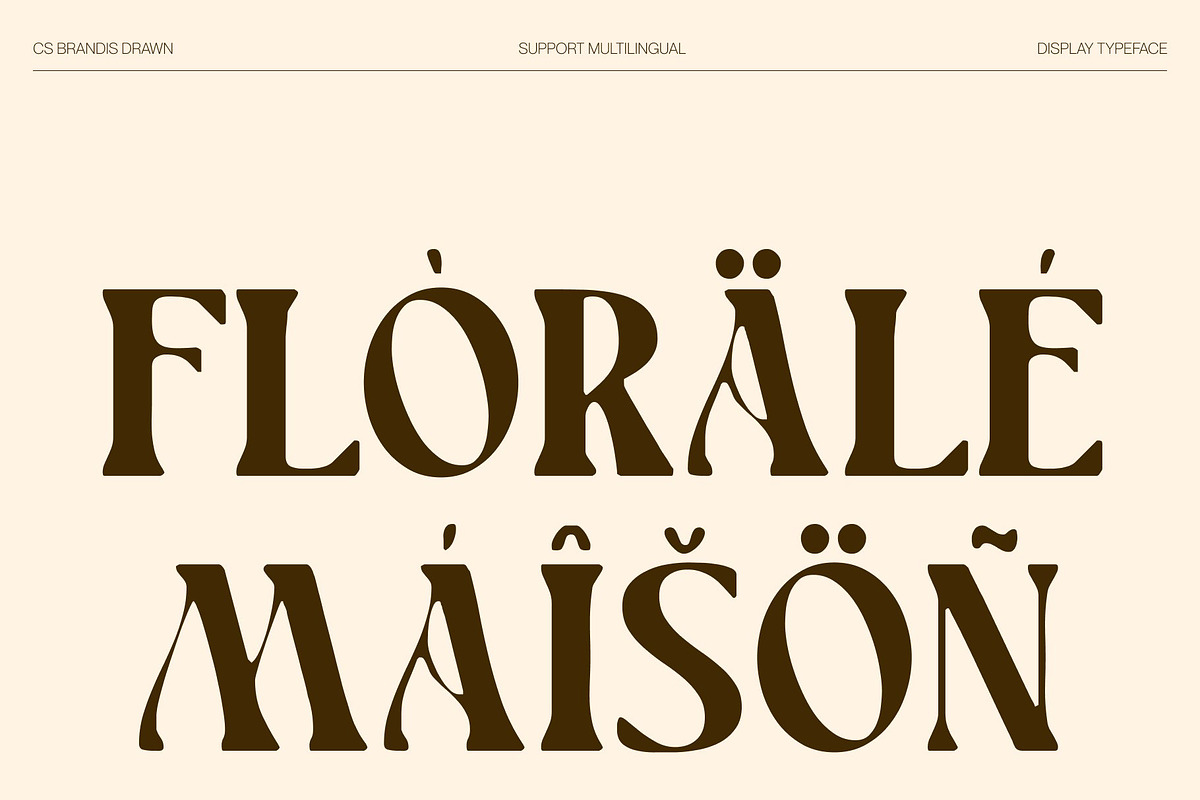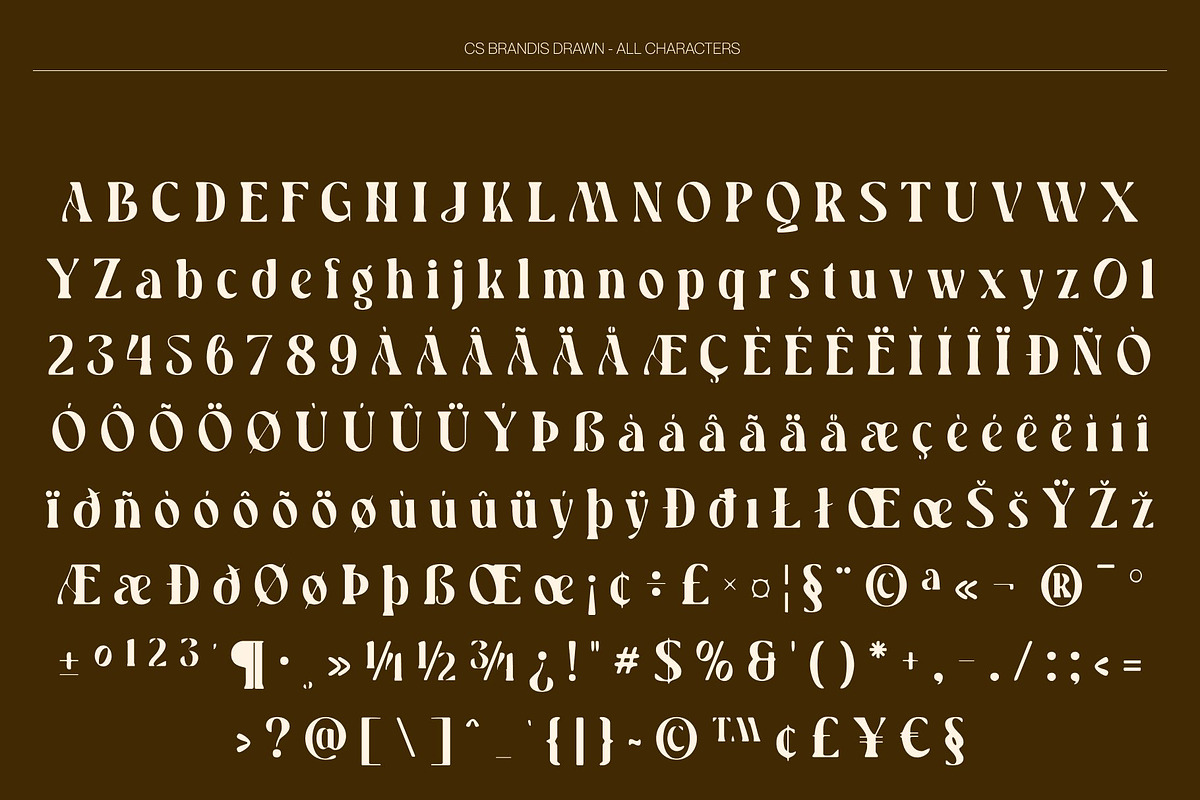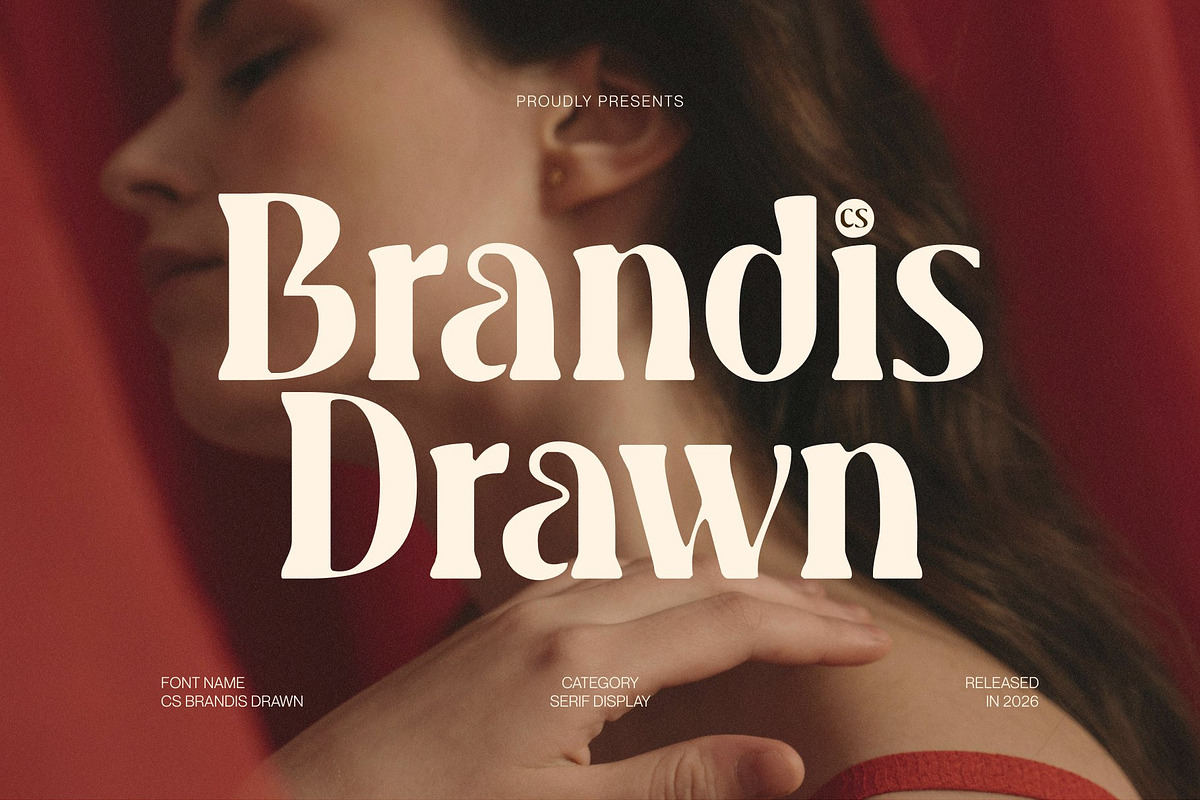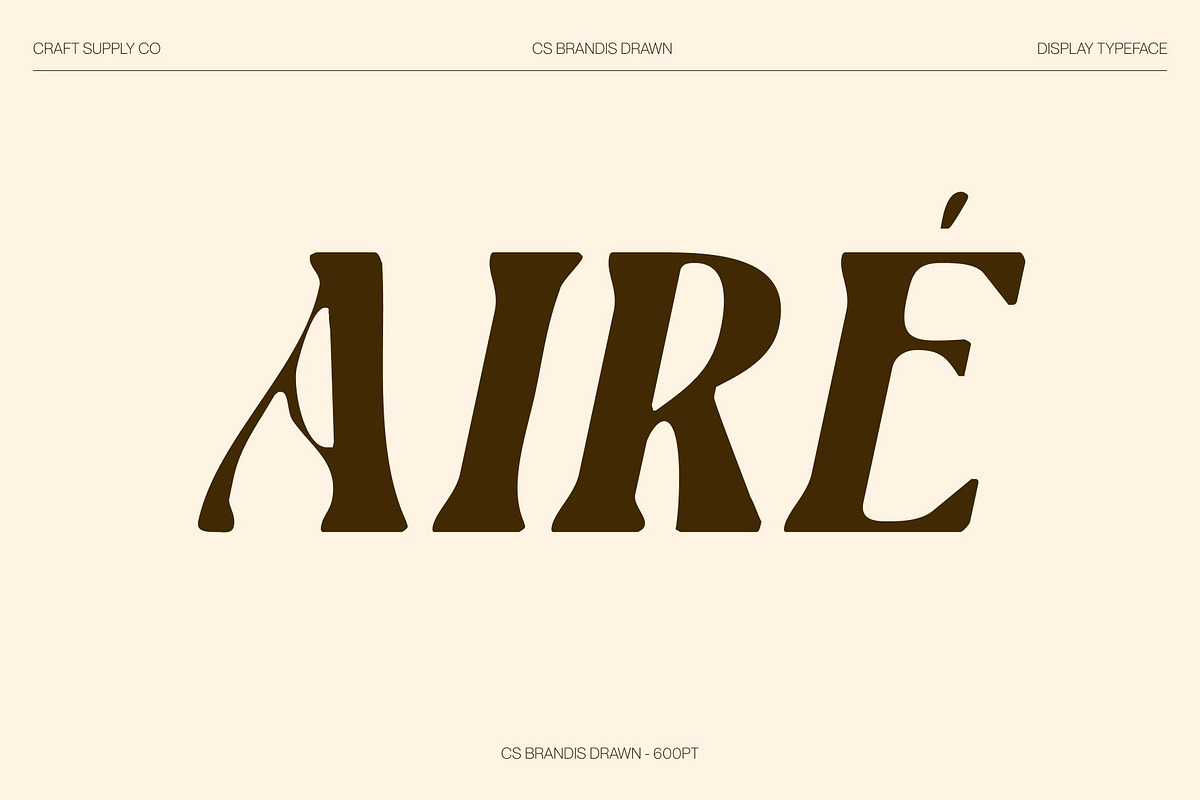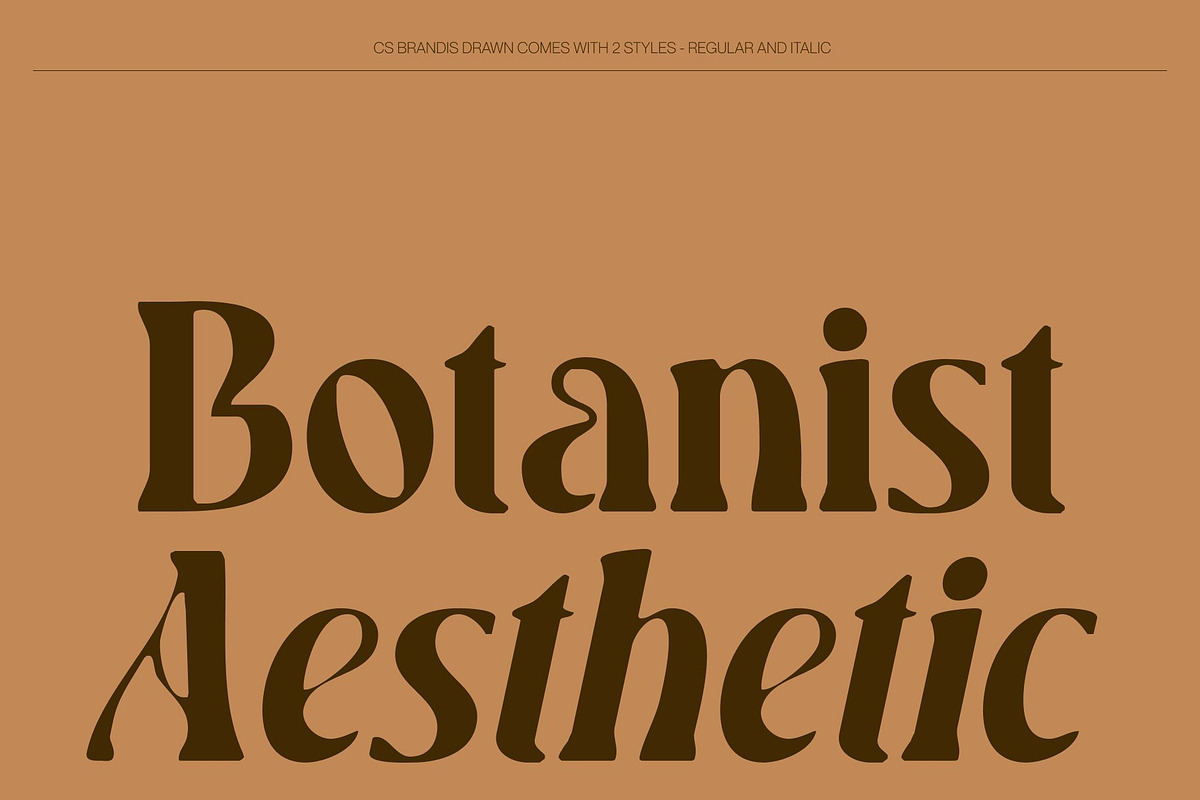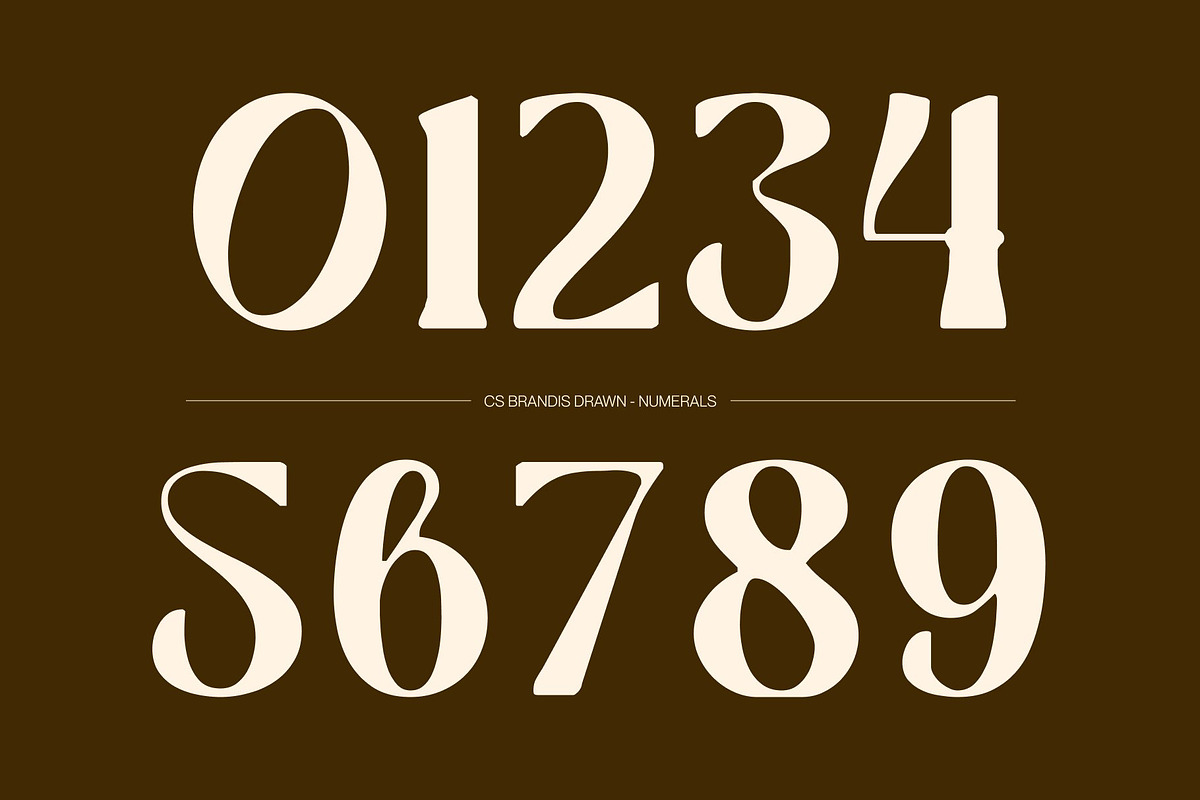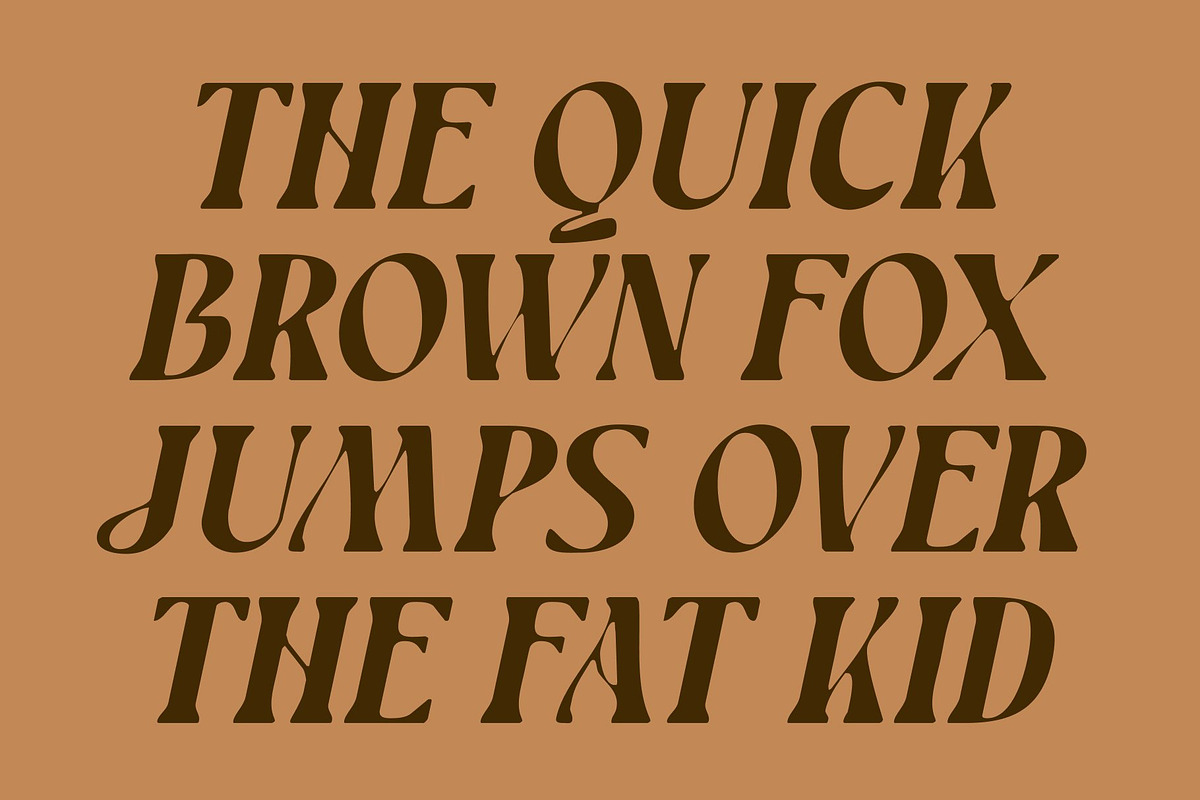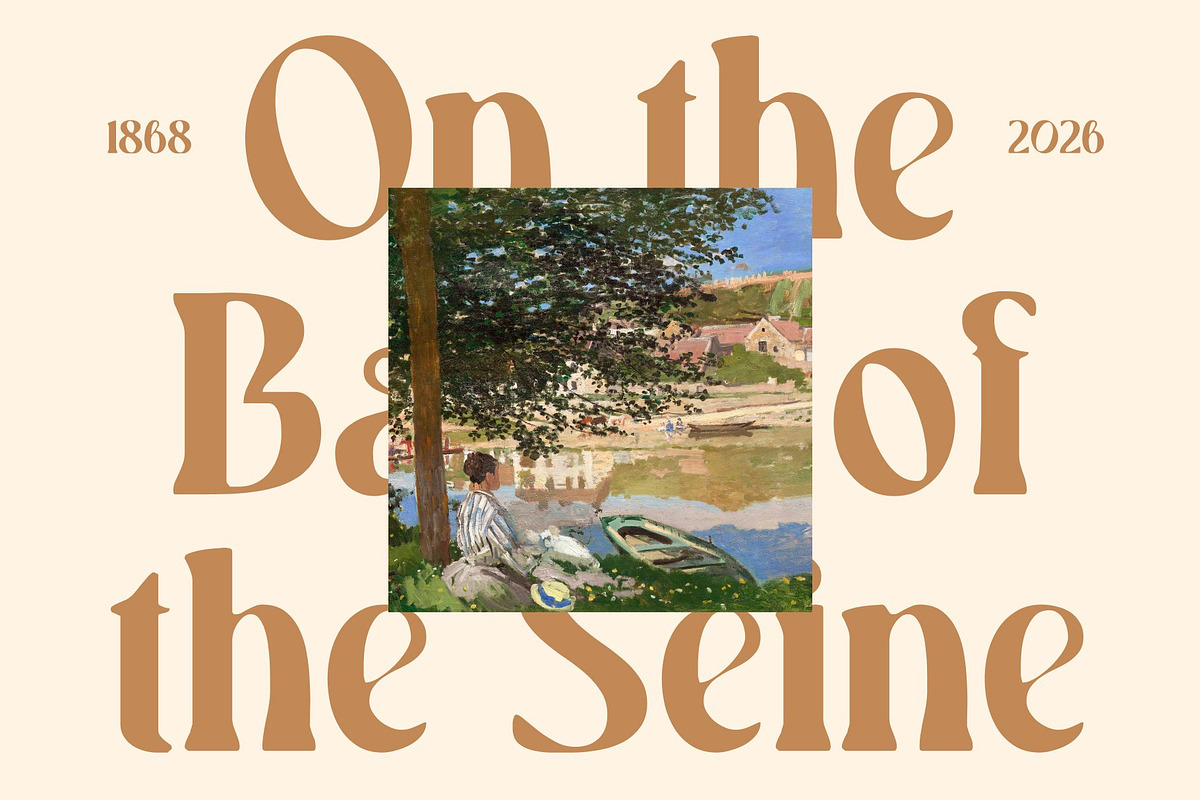
CS Brandis Drawn
CS Brandis Drawn – Modern Serif with Elegant High-Contrast Character
Modern Serif with Timeless Elegance and Hand-Drawn Detail This is a modern serif font designed to express elegance through timeless proportions and contemporary refinement, enhanced with a subtle hand-drawn texture. Its well-crafted letterforms balance classic serif foundations with a fresh, modern attitude, creating a sophisticated typeface that feels both stylish and relevant. The drawn finish introduces warmth and artistic nuance, adding depth to its polished appearance.
High Contrast with Expressive Modern Shapes Defined by striking high-contrast strokes, this font brings drama and visual rhythm to every letter. Thick and thin transitions create dynamic movement, while playful modern shapes add charm and personality. The hand-drawn effect softens the sharp precision slightly, giving the font a refined yet organic character that feels expressive without losing professionalism.
Contemporary Sophistication with Artistic Edge Blending contemporary clarity with elegant detailing, this font delivers a look that feels modern yet enduring. Its refined curves, crisp serifs, and subtle drawn texture create a graceful flow that enhances readability while maintaining strong visual impact. The result is typography that feels fashionable, confident, and aesthetically captivating.
Perfect for Fashion and Editorial Design This font ideal for fashion branding, editorial layouts, luxury packaging, posters, and statement headlines. Its high-contrast elegance combined with a handcrafted touch makes it especially suited for magazine spreads, premium campaigns, and visual identities that demand beauty, drama, and sophisticated modern appeal.